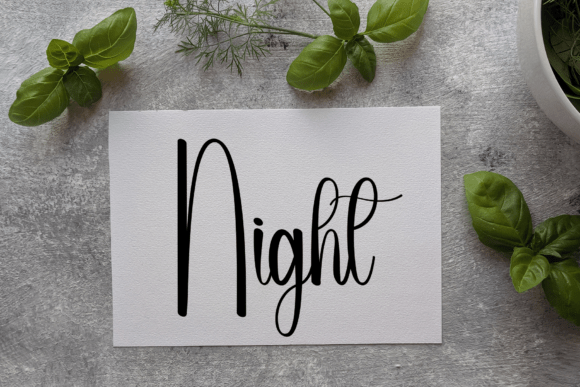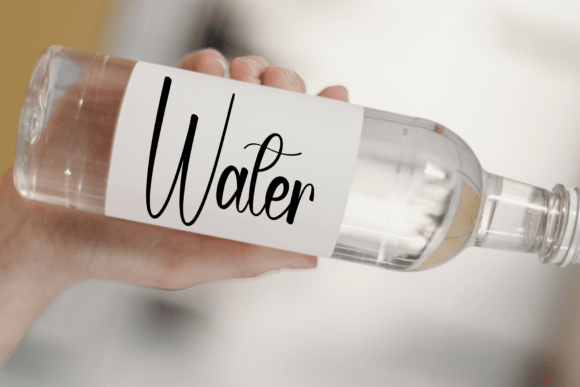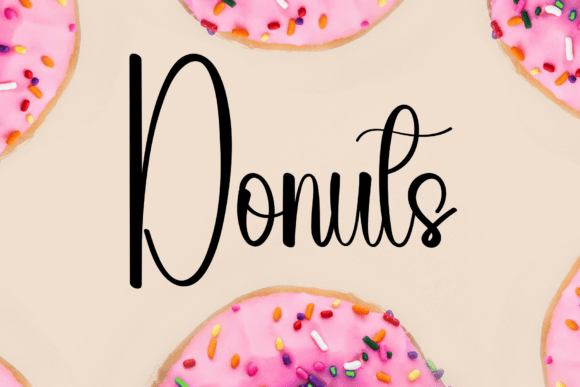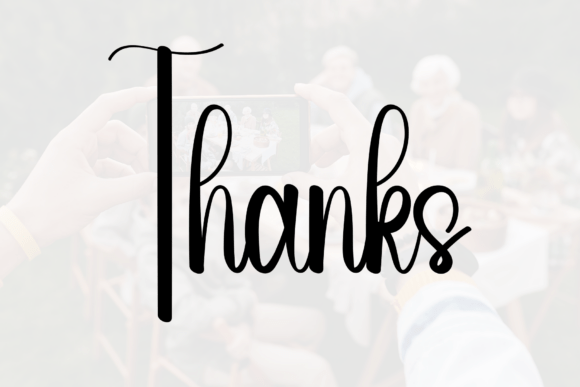
Introducing Haunter Font: The Perfect Blend of Rustic Charm and Playful Elegance
Are you tired of using the same old fonts for your design projects? Look no further! We’re excited to introduce Haunter, our newest handmade font that combines rustic charm with playful elegance. This unique script font is perfect for designers and crafters looking to add a touch of personality to their visual identity.
What Makes Haunter Font So Unique?
Haunter font is characterized by its dramatic, oversized initial capitals and high-contrast vertical stems, paired with whimsical, sweeping loops that evoke a sense of handcrafted storytelling. The slightly irregular rhythm and artisanal texture give it a genuine, “ink-on-paper” feel that is both personal and professional. This font is perfect for those who want to add a touch of sophistication and elegance to their designs.
The Perfect Font for Boutique Branding and Creative Projects
Haunter font is an extraordinary choice for boutique branding, bespoke event stationery, creative lifestyle logos, and artisanal product packaging. Its unique blend of rustic charm and playful elegance makes it perfect for businesses and individuals who want to stand out from the crowd. Whether you’re designing a logo, business card, or packaging, Haunter font delivers a sense of sophisticated personality and unscripted beauty to your visual identity.
Key Features of Haunter Font
- Dramatic Initial Capitals: Haunter font features oversized initial capitals that make a statement.
- High-Contrast Vertical Stems: The high-contrast vertical stems add a touch of elegance and sophistication.
- Whimsical Loops: The whimsical loops evoke a sense of handcrafted storytelling and add a playful touch.
- Artisanal Texture: The artisanal texture gives the font a genuine, “ink-on-paper” feel.
- Slightly Irregular Rhythm: The slightly irregular rhythm adds a touch of personality and whimsy.
How to Use Haunter Font in Your Designs
Haunter font is perfect for a variety of design projects, including:
- Boutique Branding: Use Haunter font to create a unique and memorable brand identity.
- Bespoke Event Stationery: Add a touch of elegance and sophistication to your event stationery with Haunter font.
- Creative Lifestyle Logos: Use Haunter font to create a logo that stands out from the crowd.
- Artisanal Product Packaging: Add a touch of personality and whimsy to your product packaging with Haunter font.
Why Choose Haunter Font?
Haunter font is the perfect choice for designers and crafters who want to add a touch of personality and elegance to their designs. Its unique blend of rustic charm and playful elegance makes it perfect for businesses and individuals who want to stand out from the crowd. With Haunter font, you can:
- Add a Touch of Sophistication: Haunter font delivers a sense of sophisticated personality and unscripted beauty to your visual identity.
- Stand Out from the Crowd: Haunter font is a unique and memorable font that will help you stand out from the crowd.
- Create a Personal and Professional Look: The slightly irregular rhythm and artisanal texture give Haunter font a genuine, “ink-on-paper” feel that is both personal and professional.
Haunter font is a unique and memorable font that combines rustic charm with playful elegance. Its dramatic initial capitals, high-contrast vertical stems, and whimsical loops make it perfect for designers and crafters looking to add a touch of personality to their visual identity. Whether you’re designing a logo, business card, or packaging, Haunter font delivers a sense of sophisticated personality and unscripted beauty to your designs. So why wait? Try Haunter font today and take your designs to the next level!